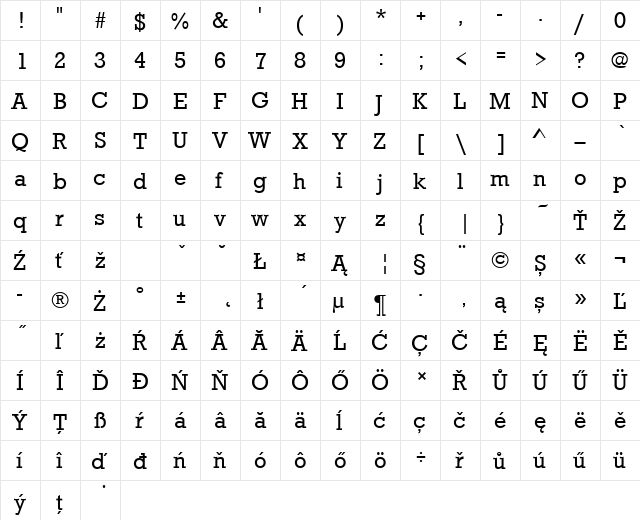
RoctusTEE Regular
Design Context for RoctusTEE Typeface
RoctusTEE is a composed and adaptable typeface that performs quietly and consistently across a wide range of design contexts.